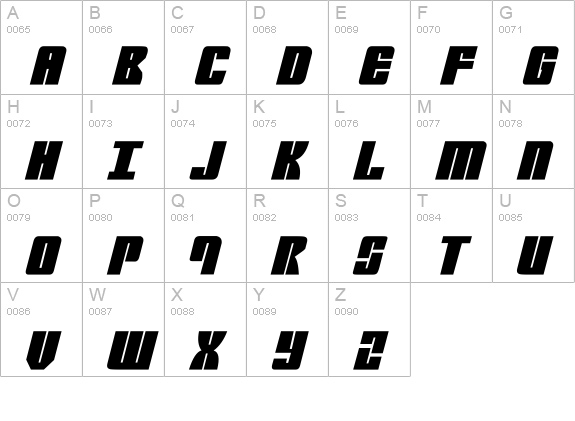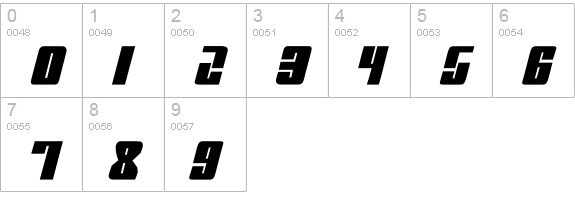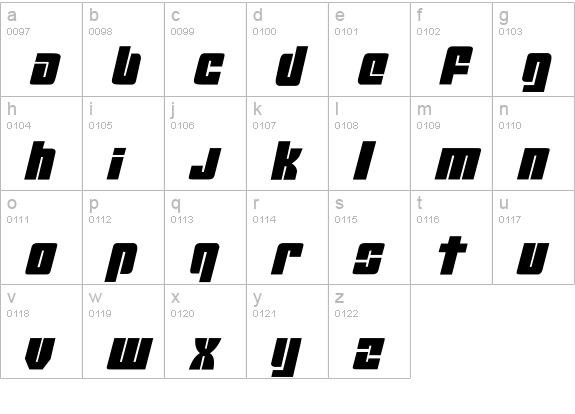
Mobile Infantry Font Details
Mobile Infantry font is a bold and modern typeface that exudes strength and power. With its clean lines and sharp angles, this font is perfect for conveying a sense of authority and precision in your designs. Whether you are creating posters, logos, or website headers, Mobile Infantry font will make a bold statement and grab your audience's attention. Best of all, Mobile Infantry font is completely free to download at FontsMarket.com. You can easily access this versatile typeface and use it in your projects without any cost. Don't miss out on the opportunity to enhance your designs with the impactful Mobile Infantry font. Download it today and start creating visually striking content that commands attention.